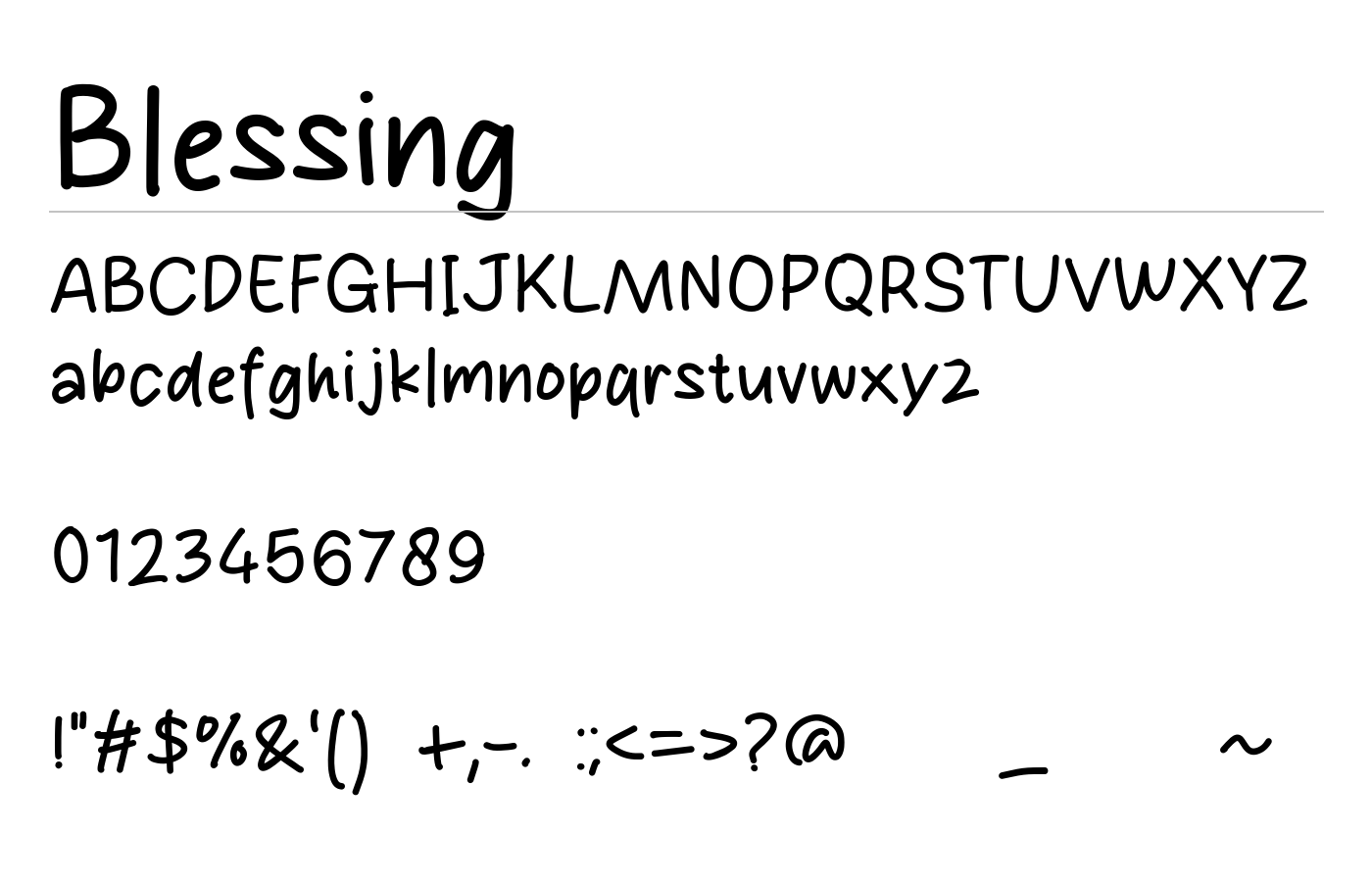
Blessing Font is a casual, handwritten sans serif typeface with a playful and friendly feel. Its moderate weight, open spacing, and slightly irregular letterforms give it an approachable and informal character, making it ideal for personal projects, children’s content, and creative branding that seeks warmth and simplicity. This font works well in headlines, logos, and digital designs where a genuine, human touch is desired.
Blessing Font
About Blessing Font